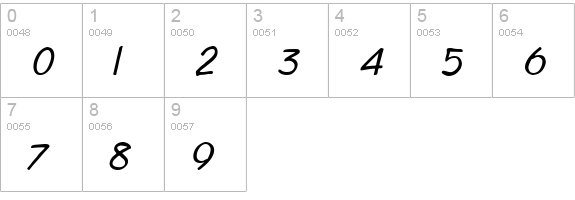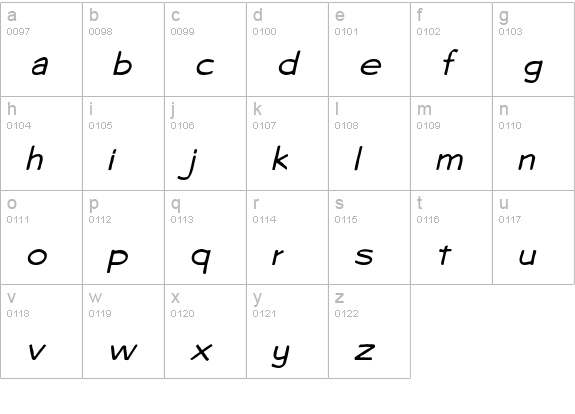
Copybook Italic Font Details
Copybook Italic is a distinctive, italic variant in the Copybook typeface family \xE2\x80\x94 well suited to design and typography projects.
Copybook Italic font is a classic and elegant typeface that exudes sophistication and charm. With its slanted, cursive style, this font is perfect for adding a touch of refinement to any design project. The flowing lines and delicate curves of Copybook Italic make it a versatile choice for a variety of applications, from invitations to branding materials. This font is not only stylish and timeless but also incredibly versatile. Whether you're working on a formal event invitation, a logo design, or a marketing campaign, Copybook Italic will add a touch of class and sophistication to your project. The best part? Copybook Italic font is completely free to download at FontsMarket.com. Now you can elevate your designs with this beautiful typeface without breaking the bank. Don't miss out on this opportunity to enhance your projects with the elegance of Copybook Italic font. Download it today and start creating stunning designs that will leave a lasting impression.